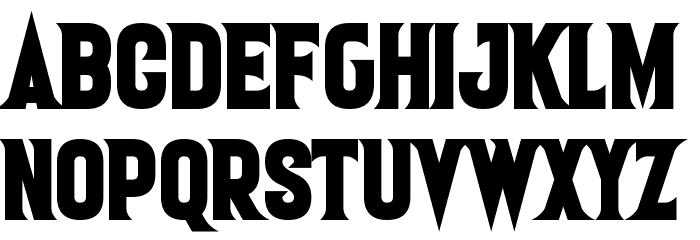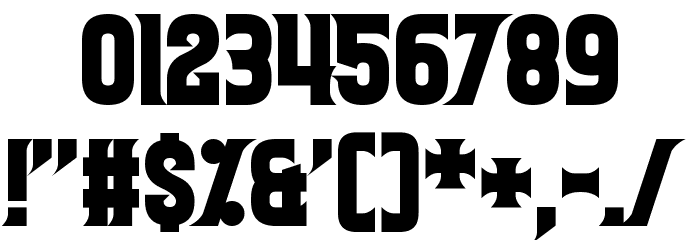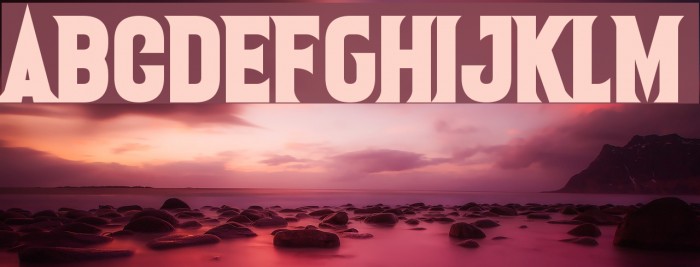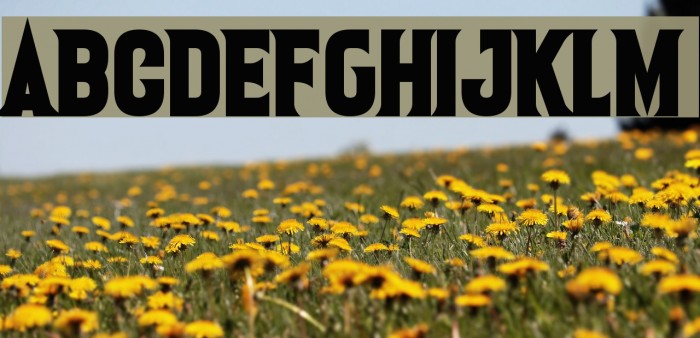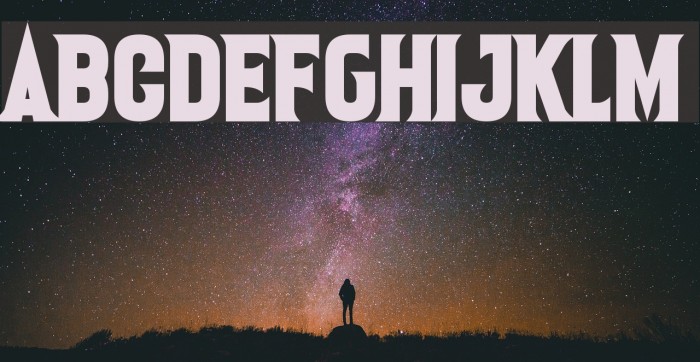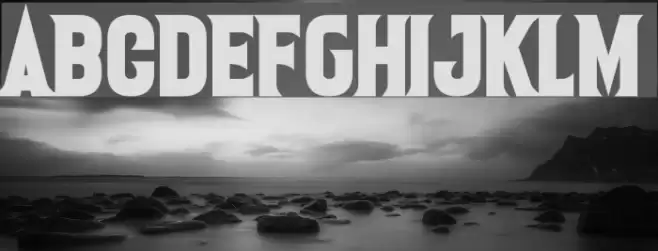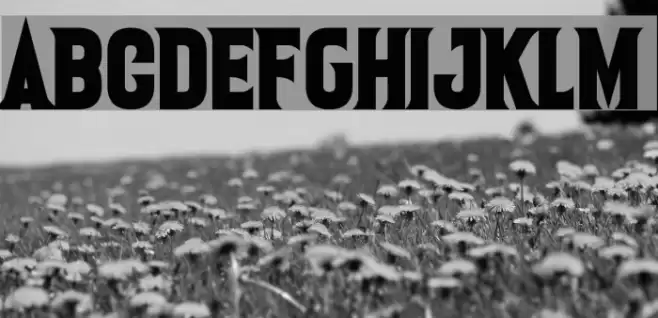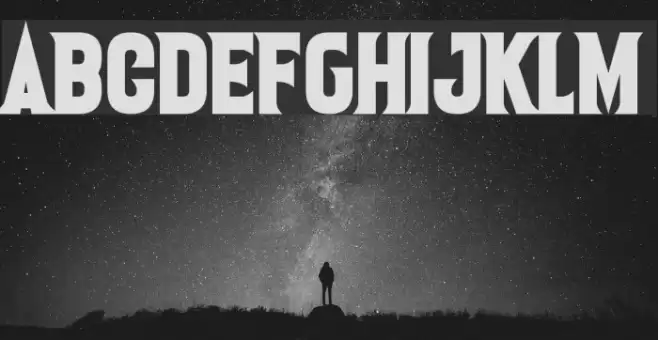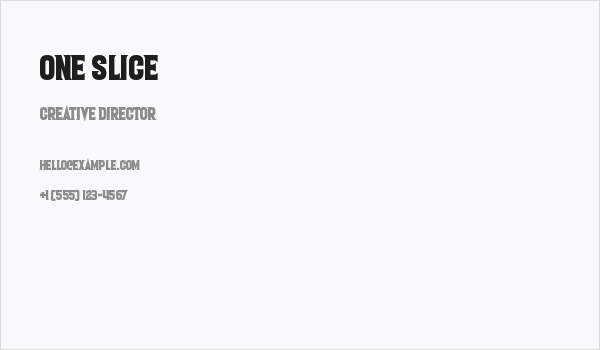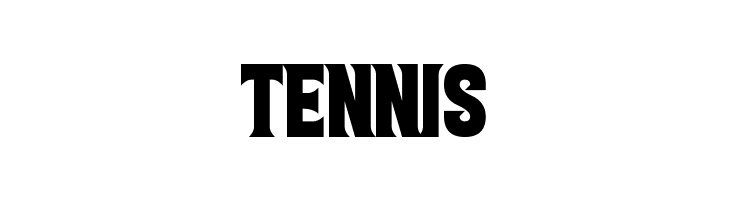
One Slice Font
This font features a bold and striking design with a unique cut-out style that adds a dynamic and edgy feel to each character. The uppercase letters are robust and commanding, while the lowercase letters maintain a consistent boldness. Numbers and special characters follow the same bold aesthetic, ensuring uniformity across all elements. The font's distinct style makes it highly suitable for attention-grabbing designs, where a strong visual impact is desired. Its geometric shapes and sharp angles contribute to a modern and assertive appearance.
A bold, cut-out style font with a modern and edgy look.
- Proposed Projects: Ideal for posters, logos, branding, and any design requiring a bold statement.